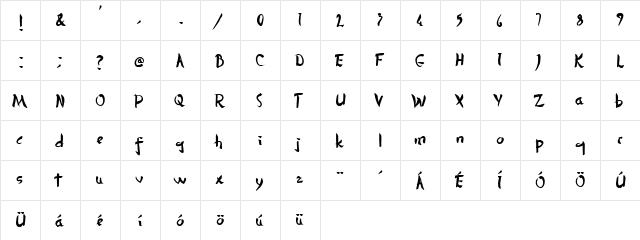
Dersu Uzala brush Regular
| Designer | Roland Huse |
Design Context for Dersu Uzala brush Typeface
Dersu Uzala brush flows with the natural rhythm of handwritten lettering, making it ideal for designs that call for warmth and personal expression.